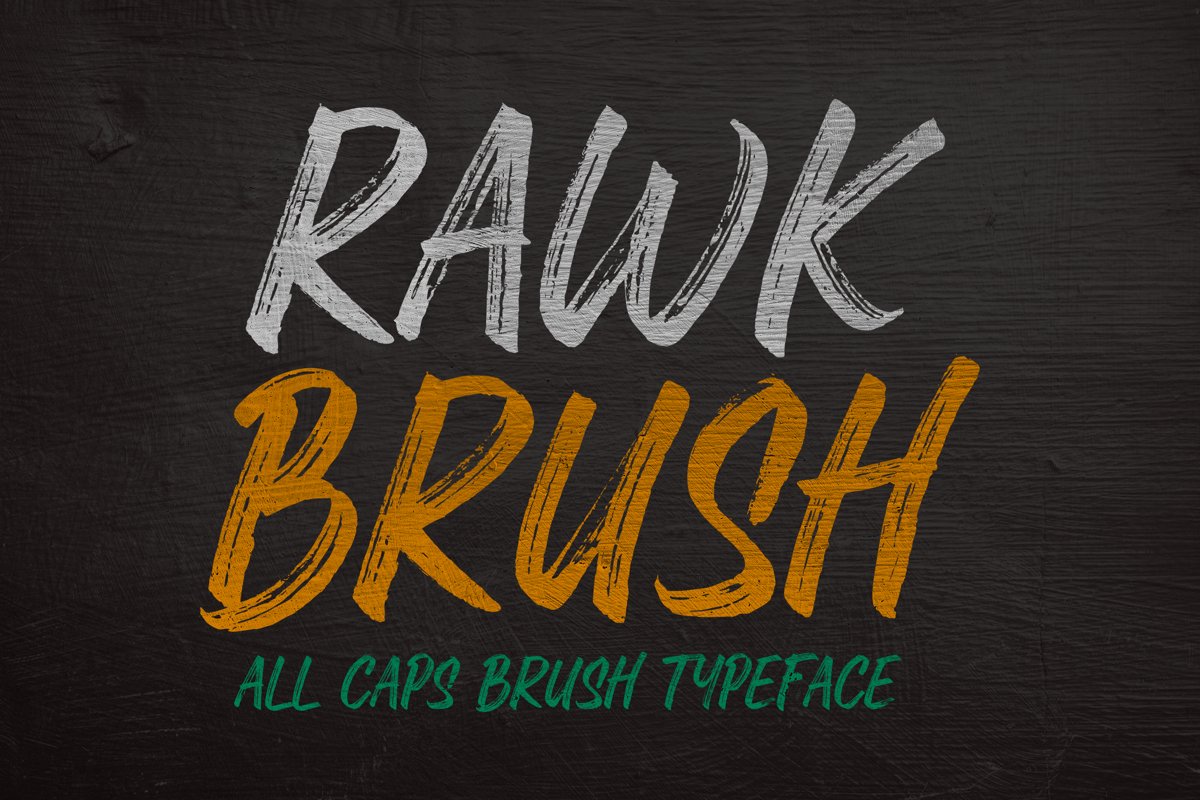
Rawk Brush
Introducing Rawk Brush!
Rawk Brush made from scratches with a real dry brush-pen!
Cool for create a rare typography for logo or logotype, signboard, short quotes, for t-shirt design, or even a movie title!
HIGHLIGHT:
• Total 267 Glyphs with some alternative letters
• Support OpenType Features
•  Support Ligature, for make your typography looks like a natural brush hand-lettering
Note that this font is an ALL-CAPS font.
And all-caps font fits all!